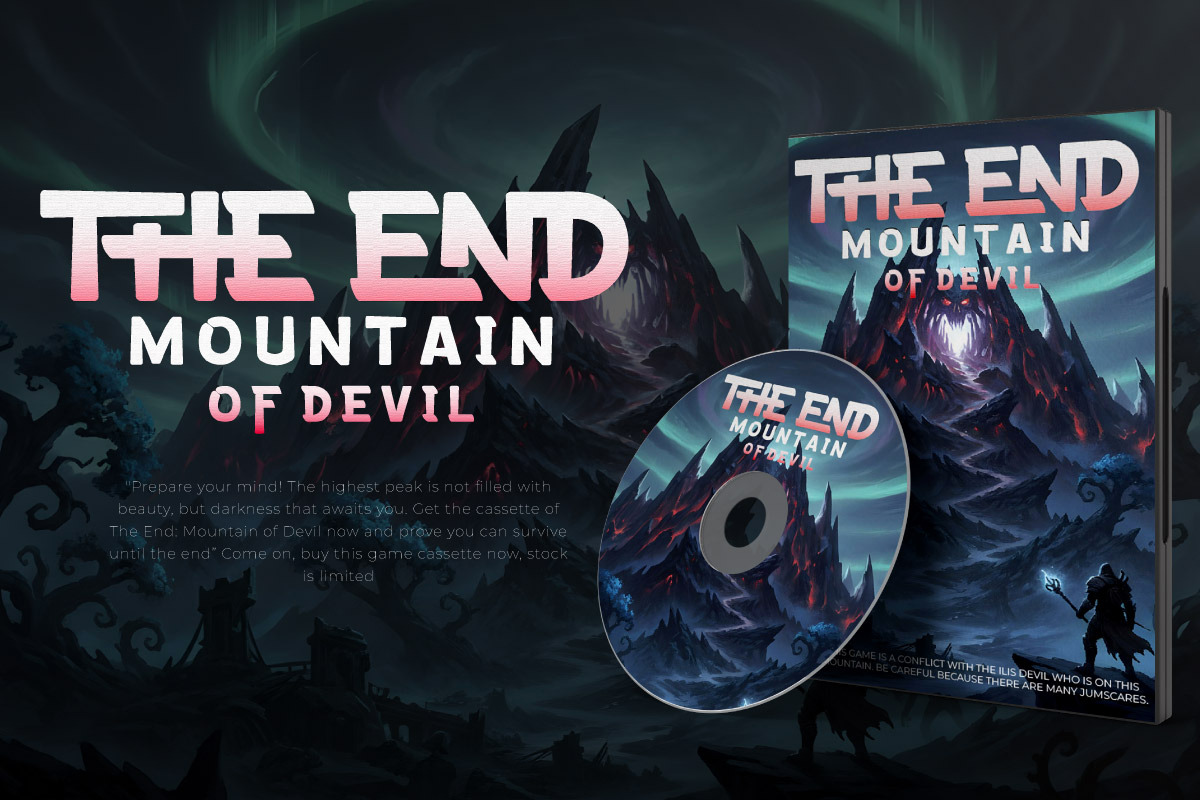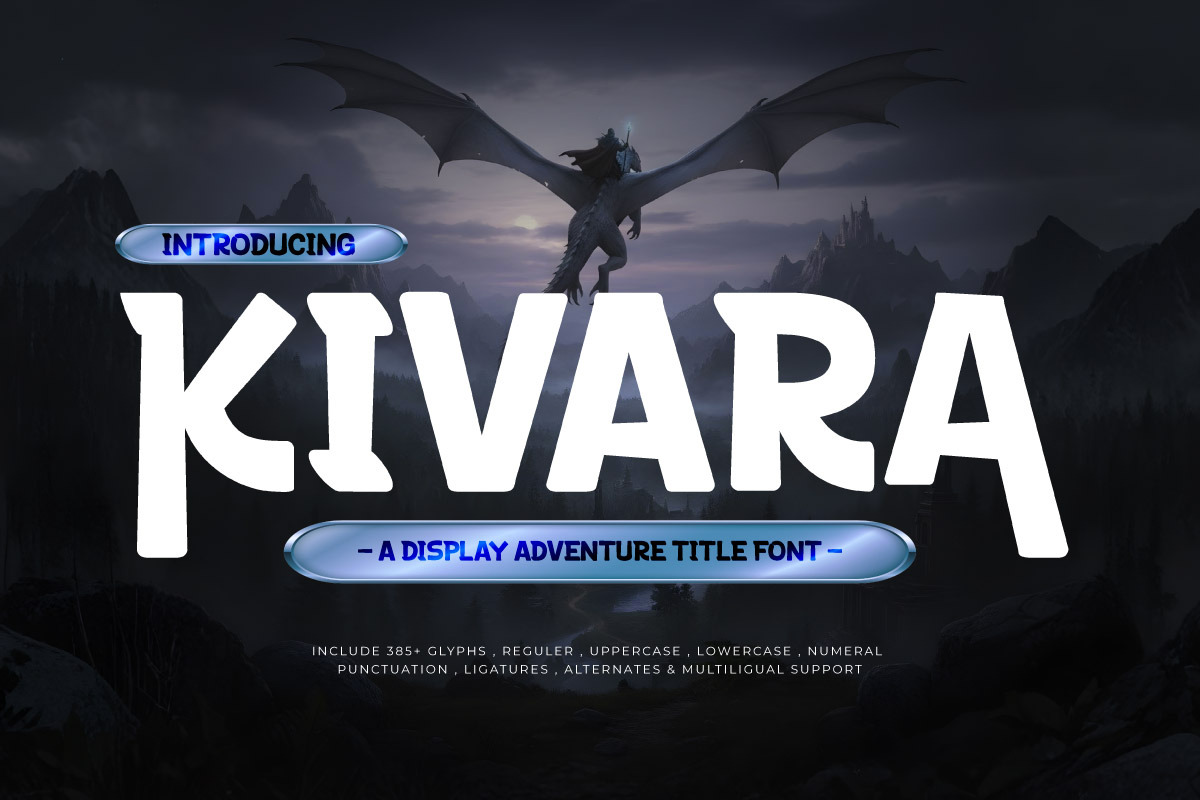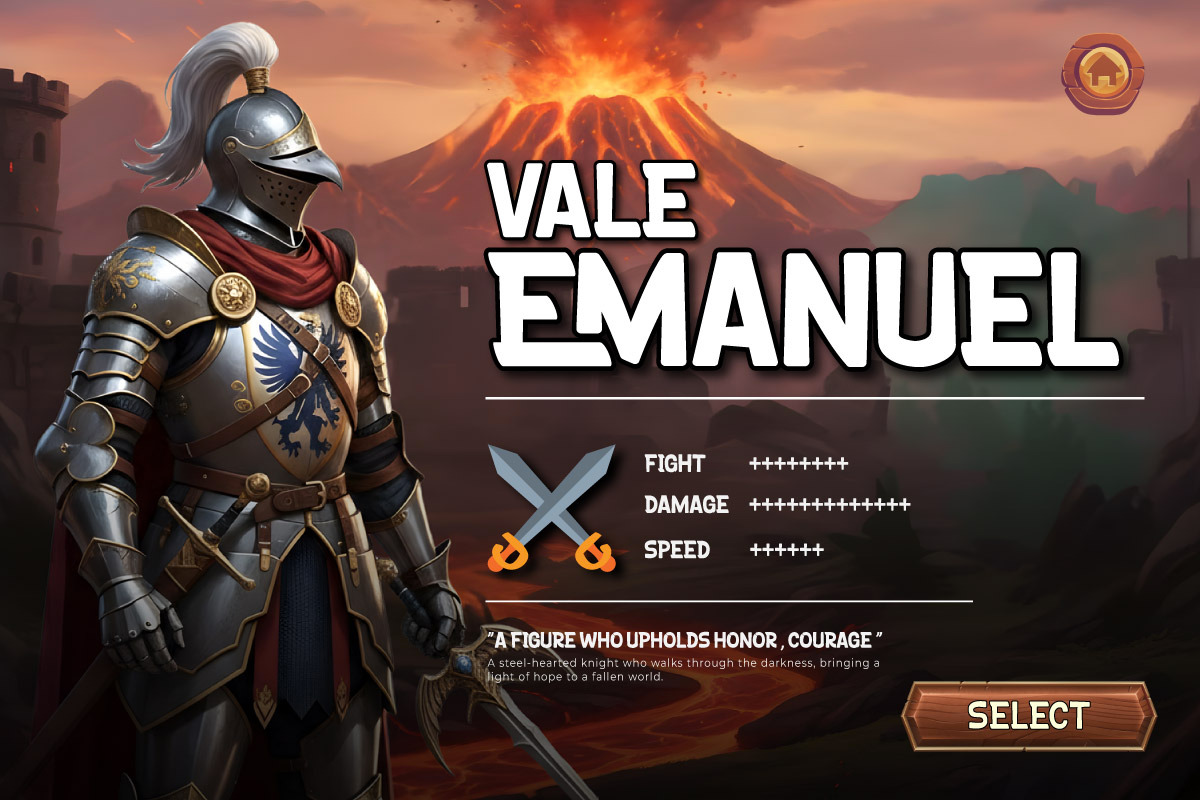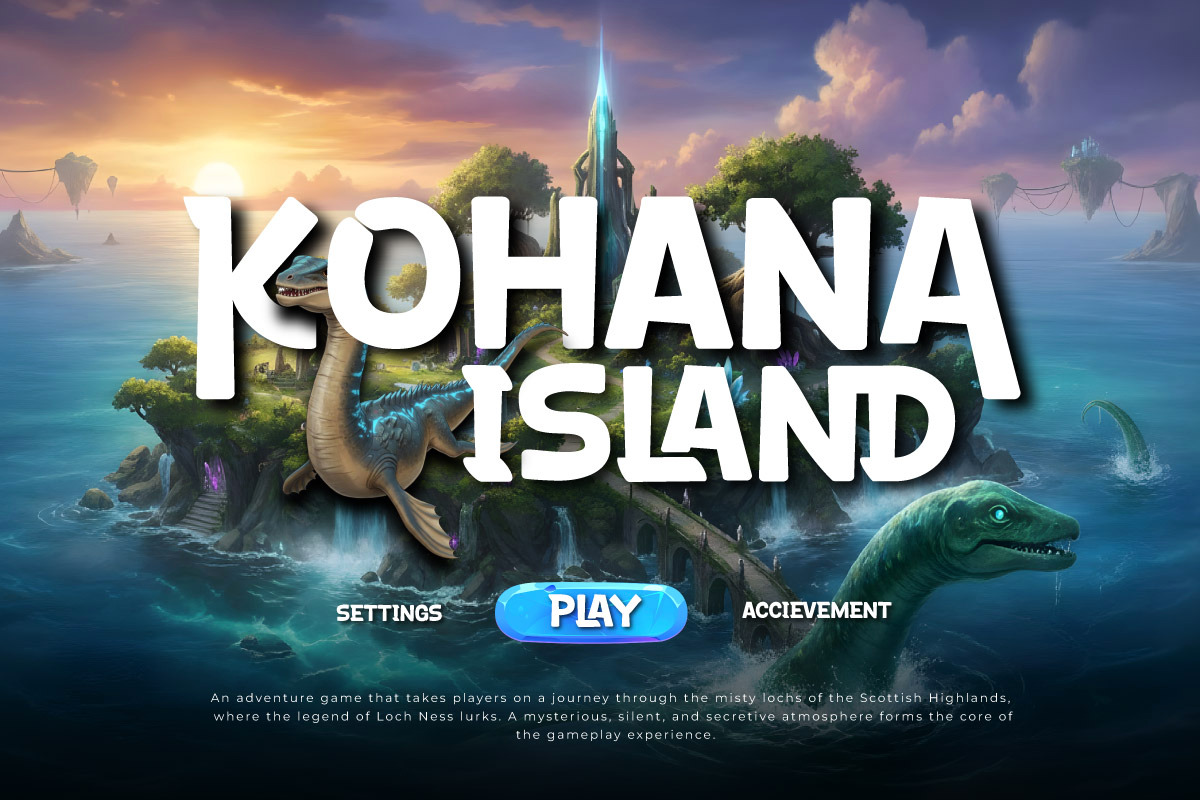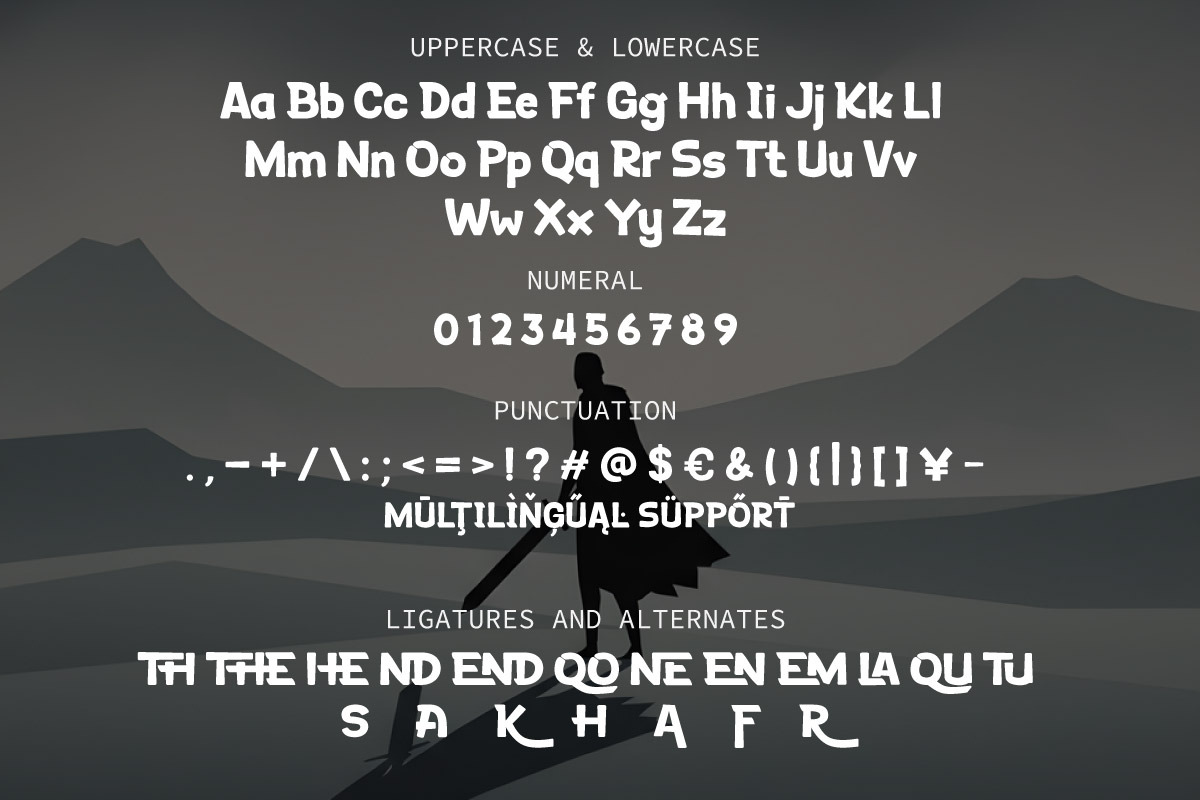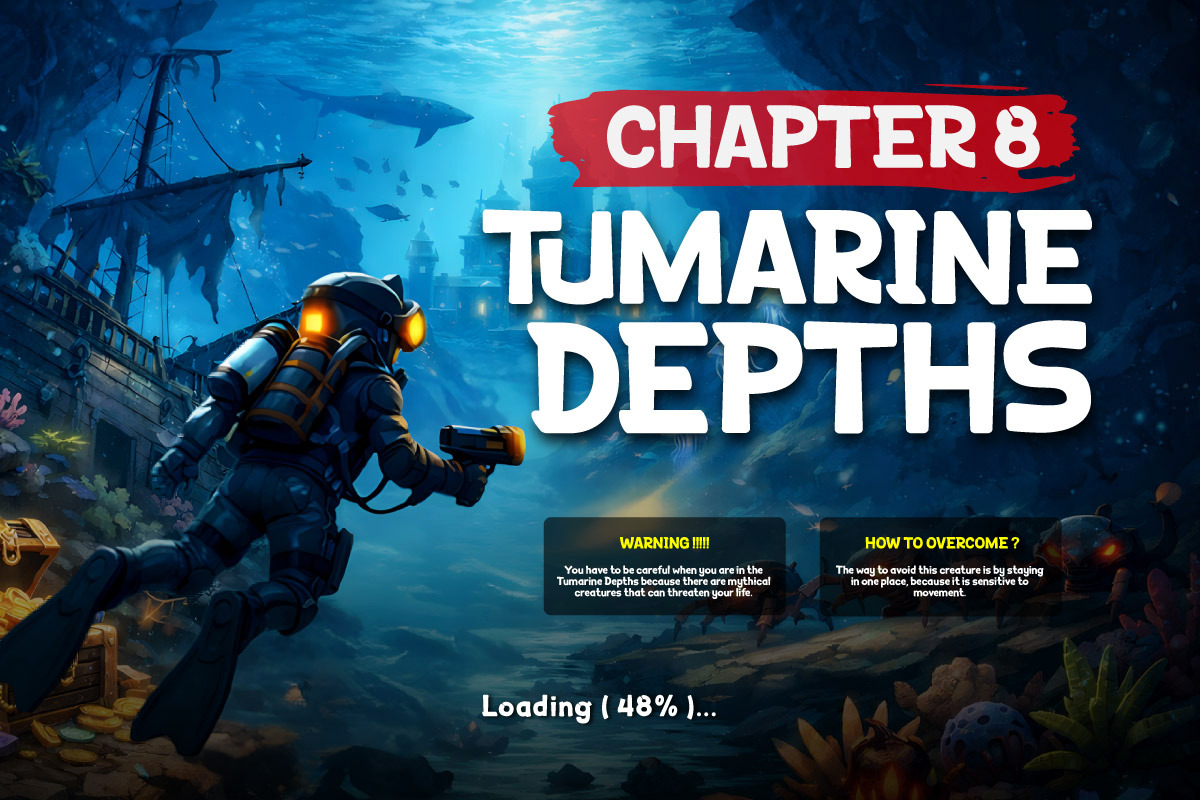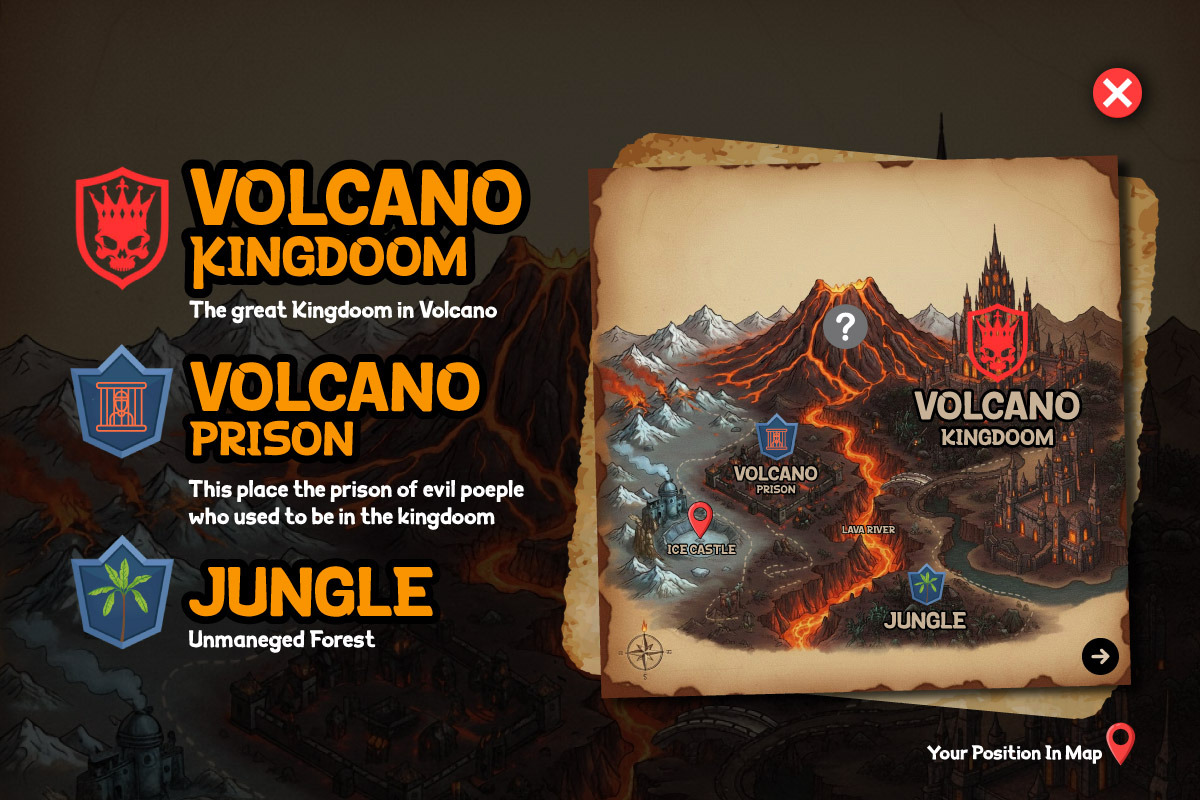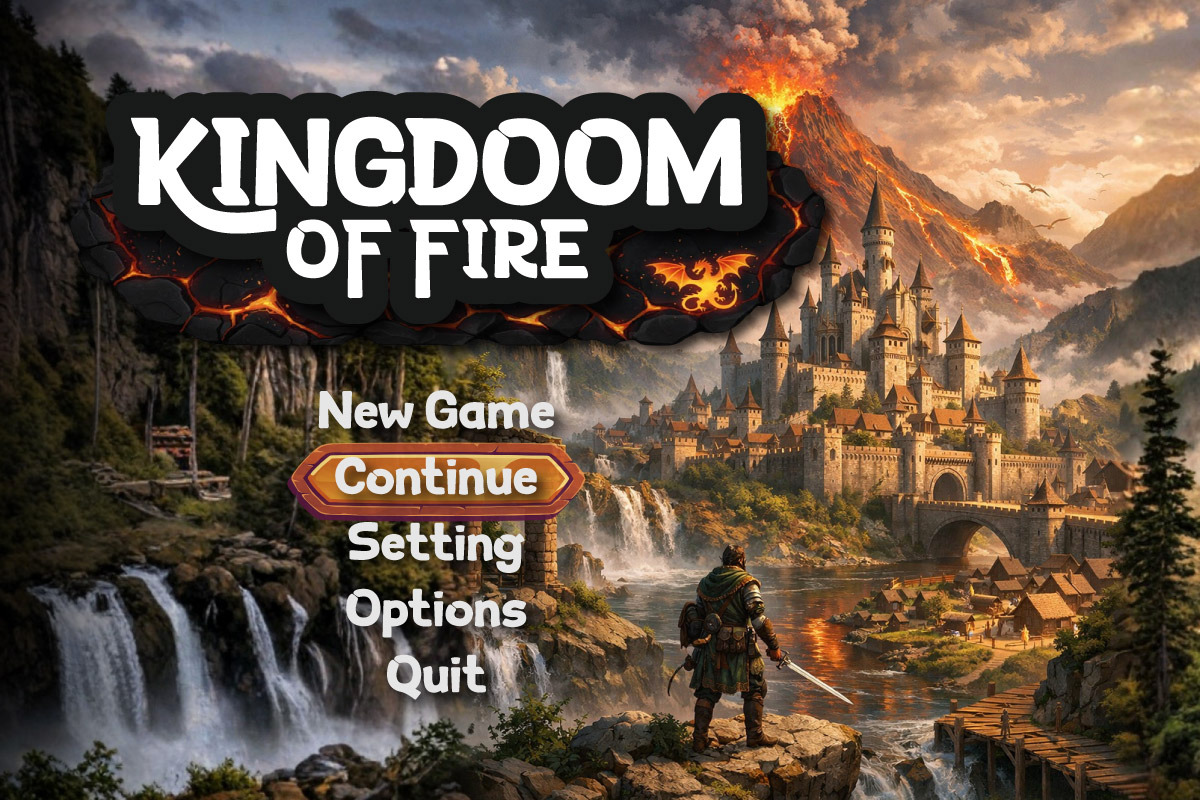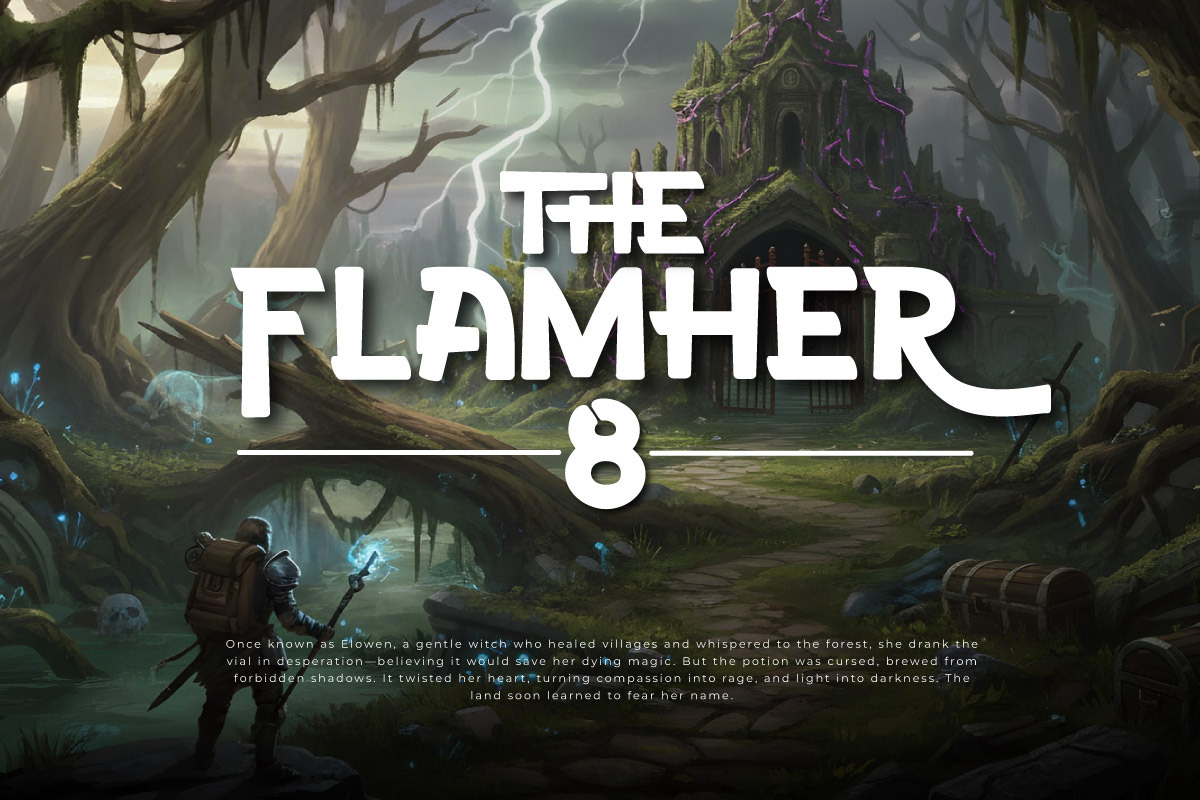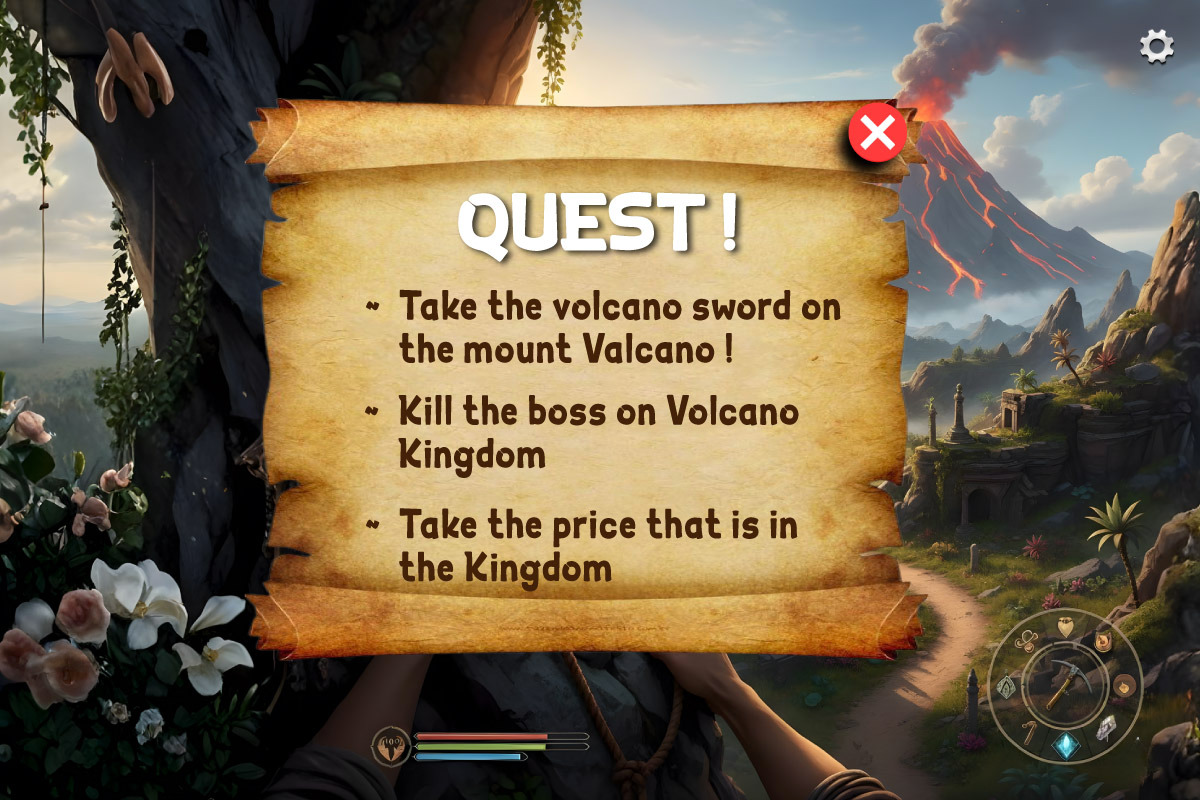
Kivara Display Adventure Title Font
Kivara is a bold Display Adventure typeface, specifically designed to capture the essence of fantasy worlds and action-packed epic adventures. Featuring strong letterforms and sharp terminals reminiscent of ancient artifacts or wild elements, this font brings a heroic and legendary atmosphere that instantly commands attention and radiates maximum power for any title it carries.
Engineered with dynamic curves and expressive details, Kivara works seamlessly for game titles, cinematic posters, and fantasy branding that require a mystical yet rugged touch. Its unique letterforms help create immersive visual storytelling across both digital and print media, ensuring every word carries profound visual weight and gives the impression of a "guardian" or "hunter" within an adventure narrative.
As a versatile Adventure Title Font, Kivara is the ideal choice for game developers and creative designers looking to elevate their projects with a magical and competitive visual identity. From Jungle Hunter themes to legendary battles, this font is perfectly suited for headlines, gaming logos, and promotional materials that aim to stand out in the marketplace with a sharp, distinctive, and unforgettable Fantasy Font aesthetic.